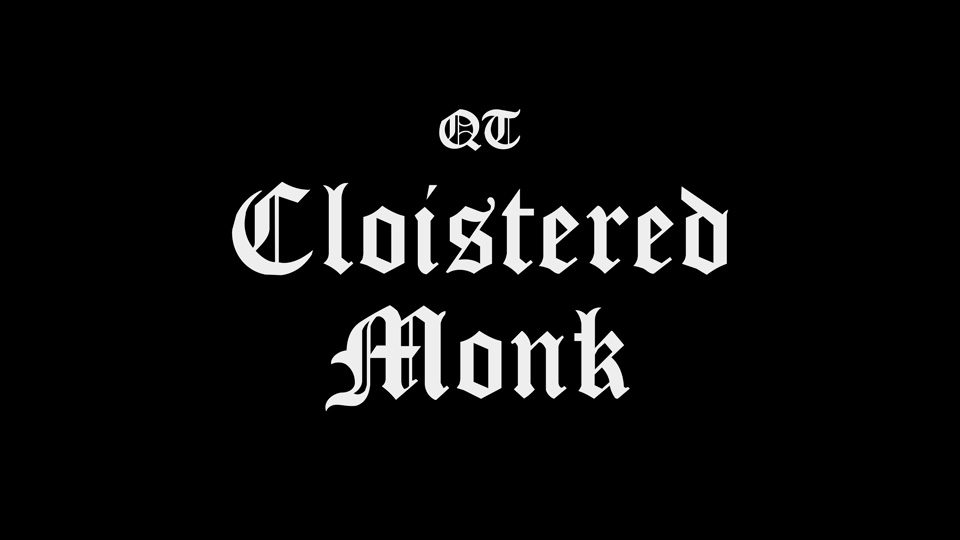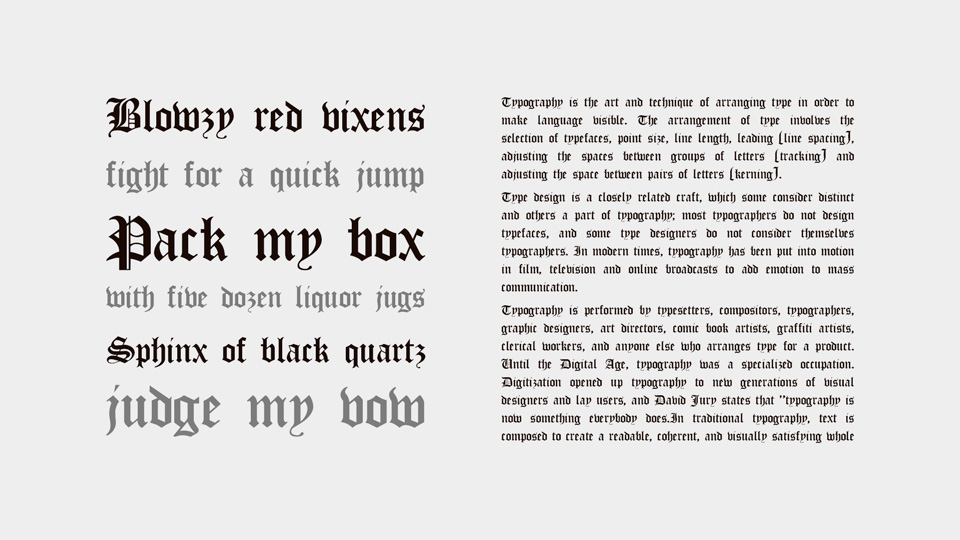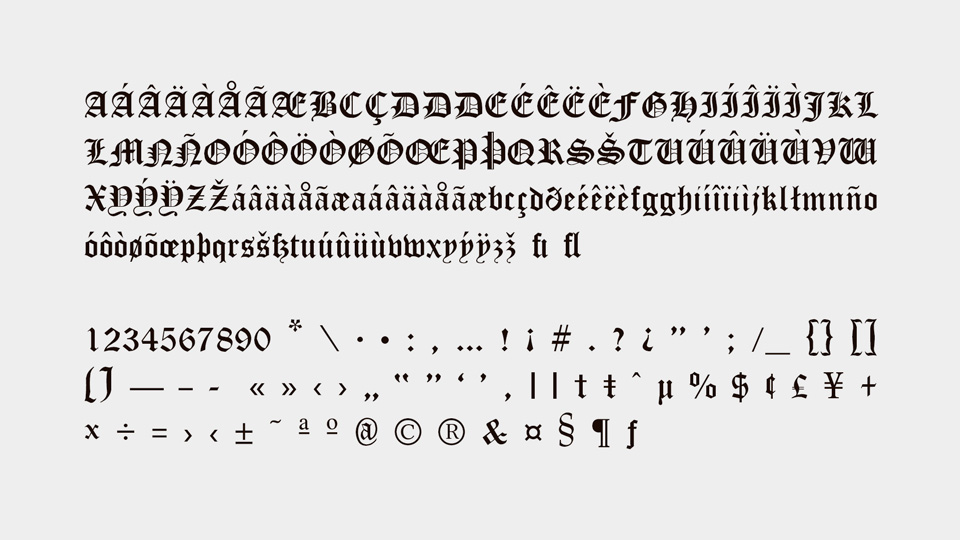
Cloistered Monk is a clean-cut blackletter typeface. The face’s design is based on that of Caslon Black, a Blackletter type cast by the venerable William Caslon foundry in England, circa 1760.
Cloistered Monk is ideal for certificates, diplomas, or any application which calls for the look of stateliness and authority. It’s a sturdy and sure bet for newspaper banners, holiday greeting cards, and wedding announcements.